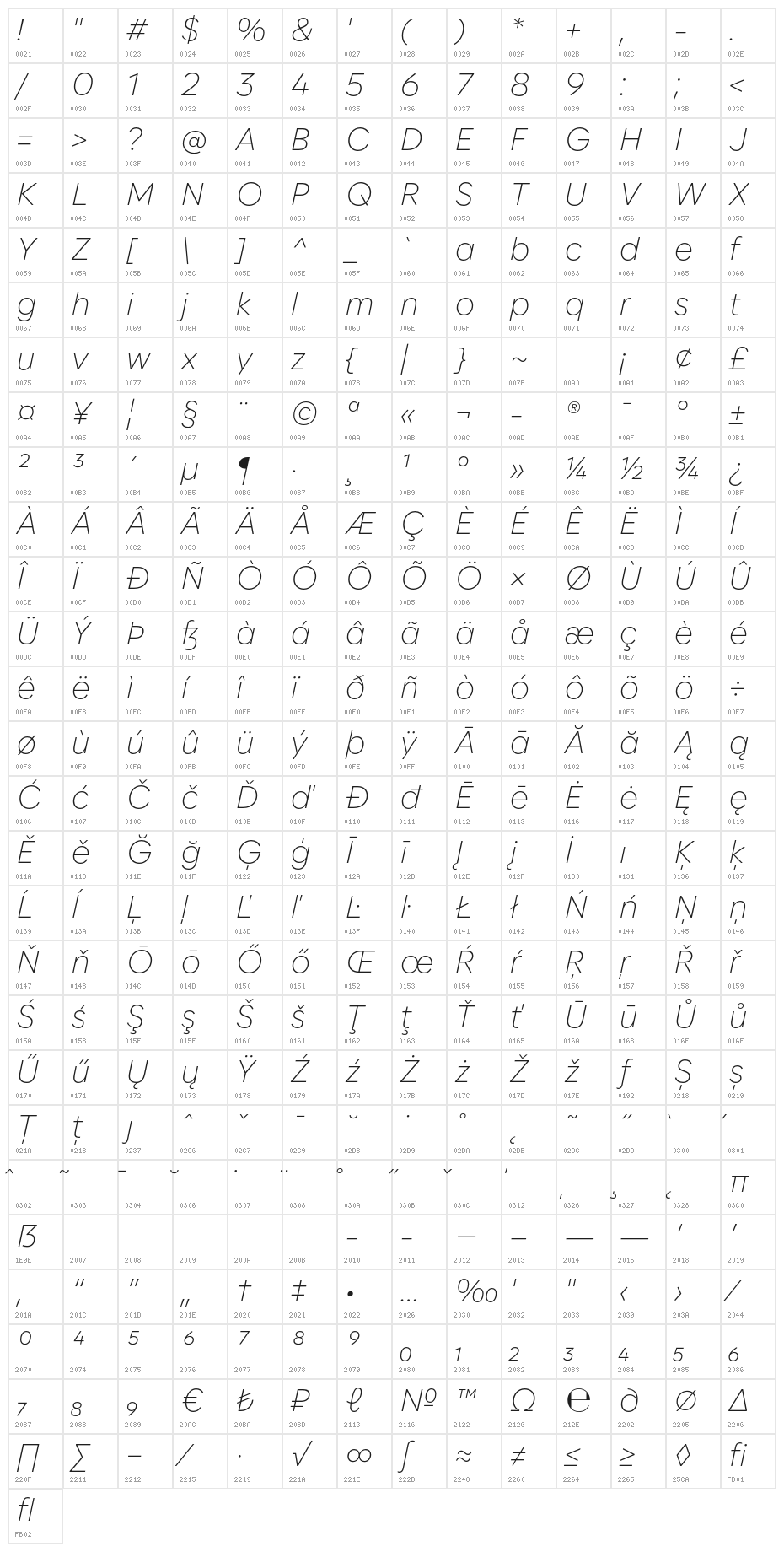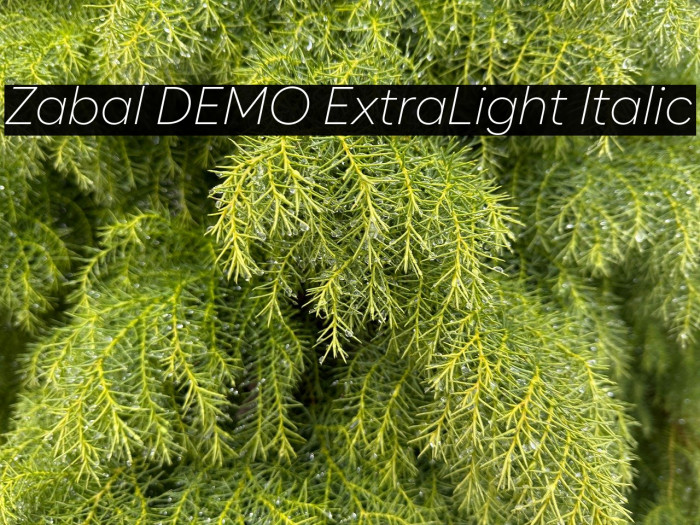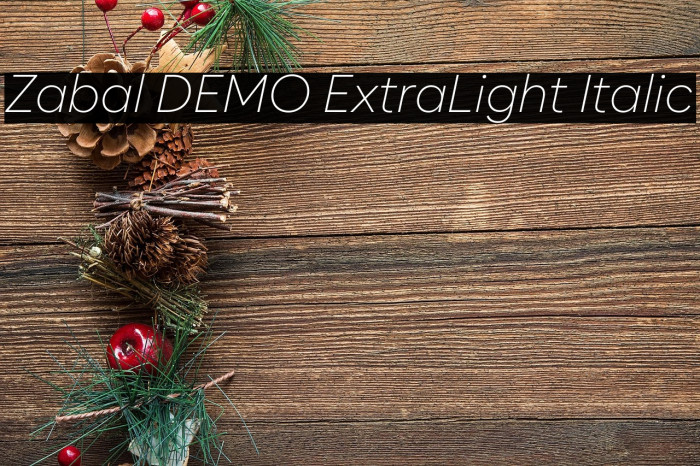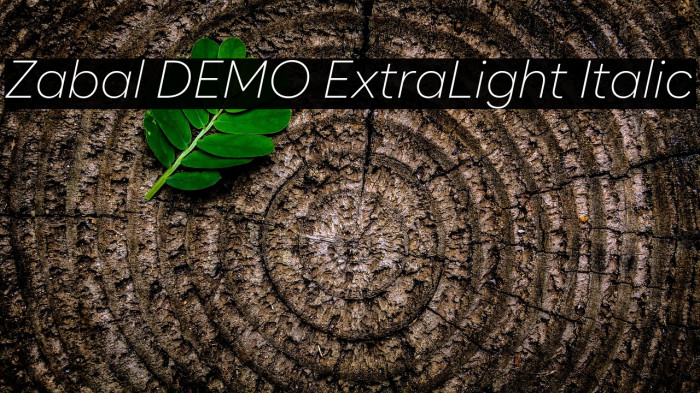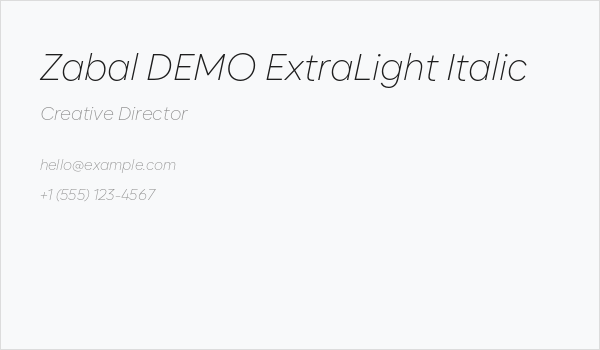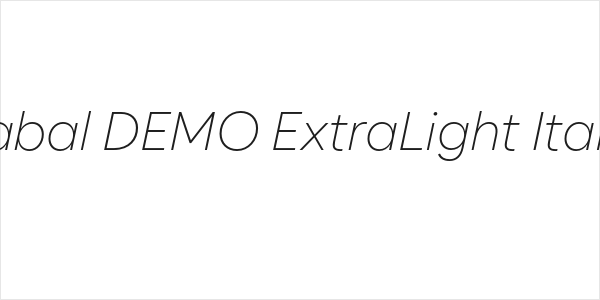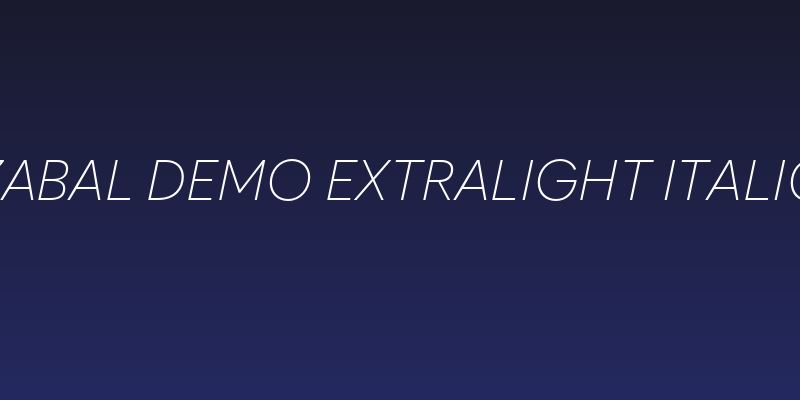
Zabal DEMO ExtraLight Italic Font
Zabal DEMO ExtraLight Italic Description
This font features a sleek and elegant design with an extra light weight and italic style. The characters are crafted with a modern aesthetic, showcasing smooth curves and a refined structure. The uppercase and lowercase letters maintain a consistent flow, while the numerals and special characters complement the overall design. The font's thin strokes and gentle slant give it a sophisticated and airy appearance, making it suitable for projects that require a touch of elegance and modernity.
| Proposed Projects | Ideal for fashion magazines, luxury branding, elegant invitations, and modern web design. |